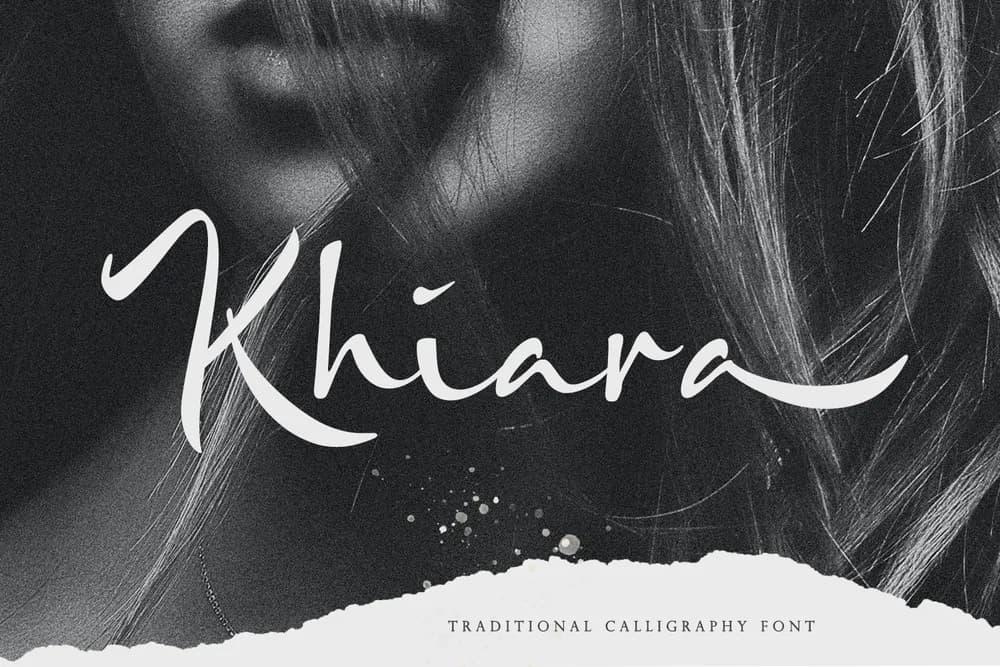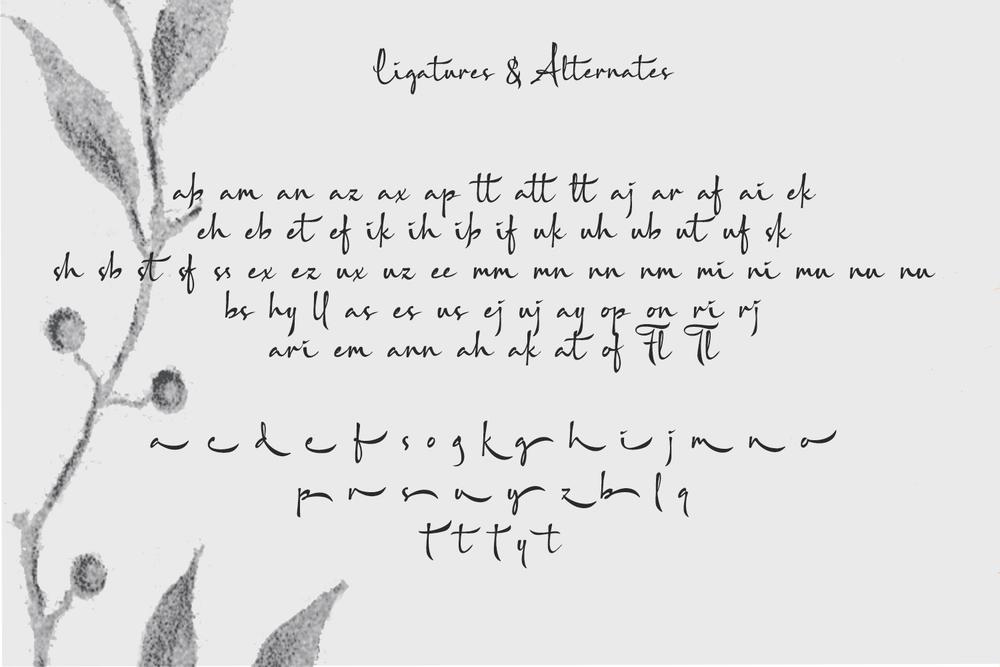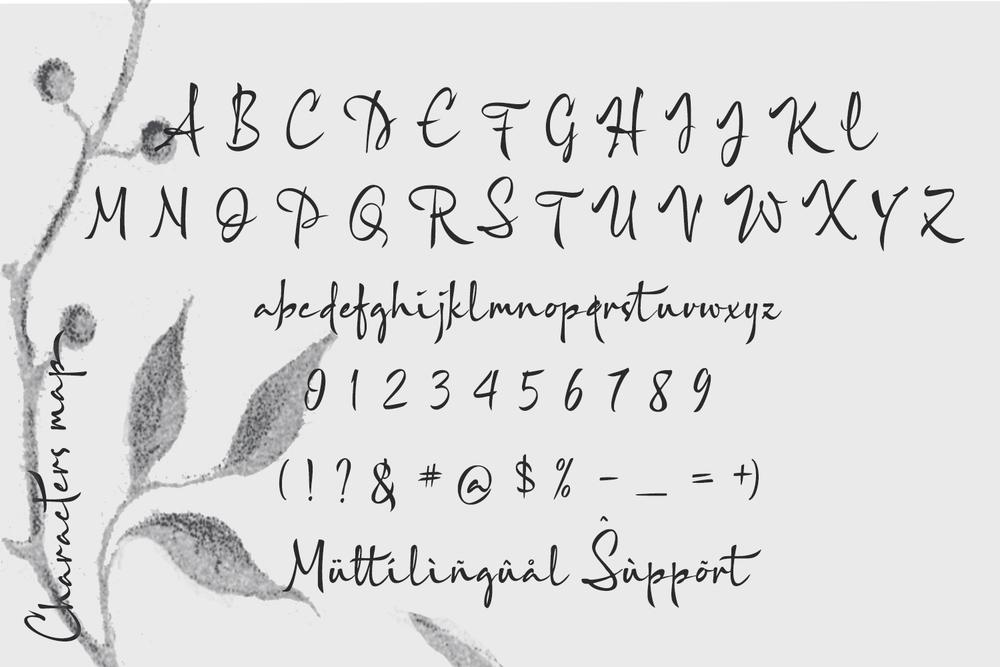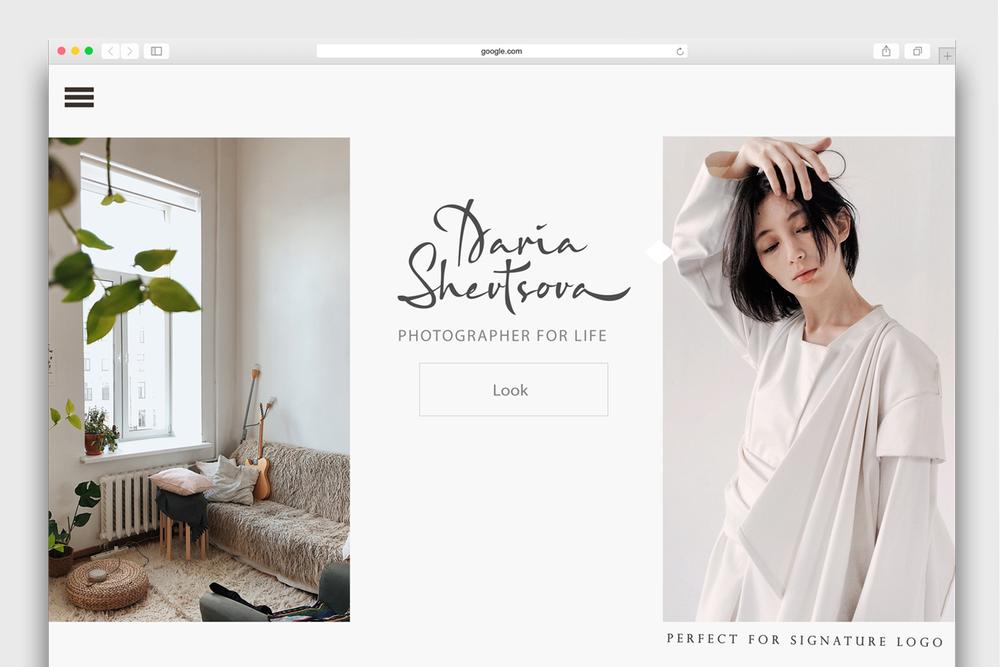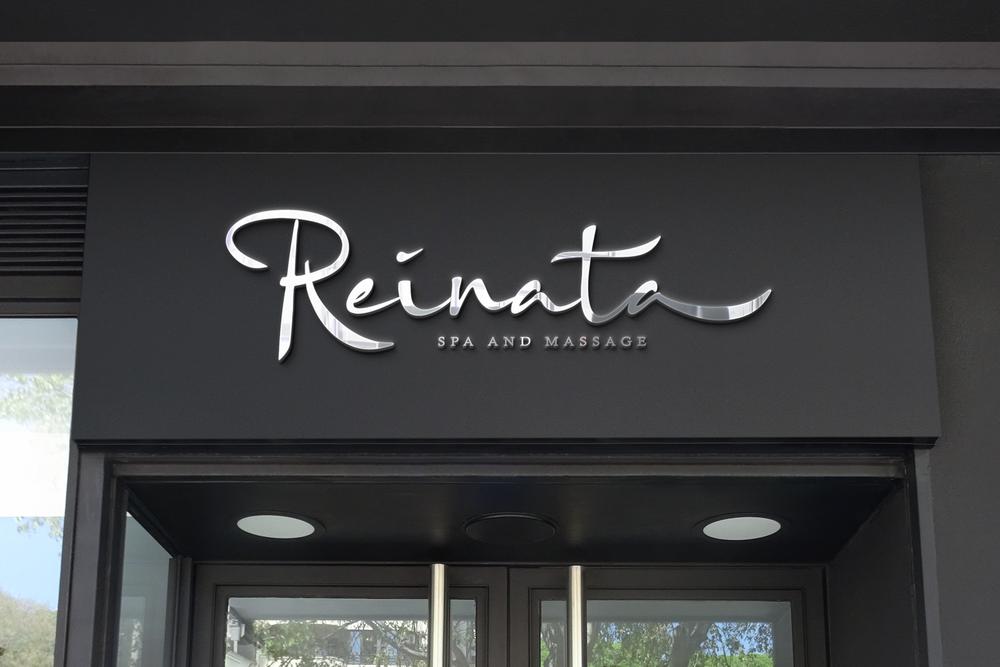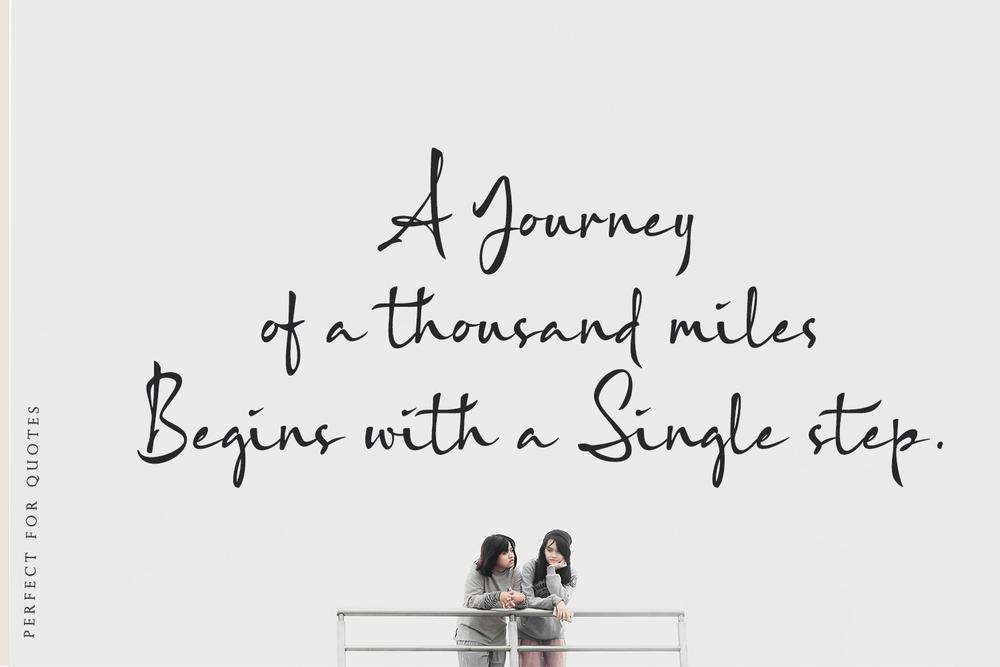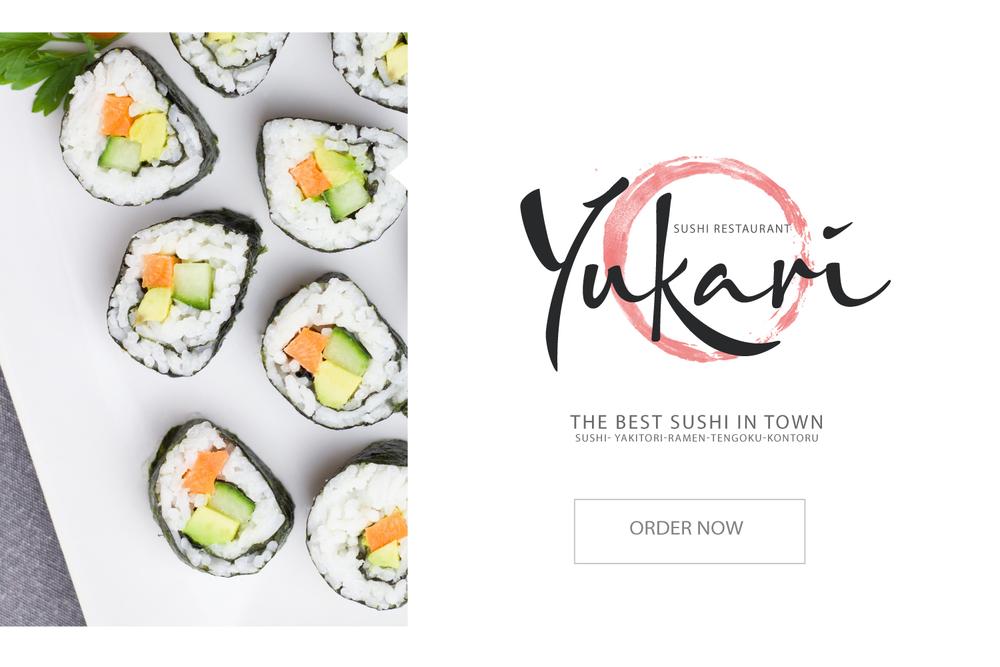
Khiara is a traditional and fashionable handwritten font. It’s the perfect choice for stylish branding logo projects, product packaging, handwritten quotes, editorial design invites, greetings and so much more! This font is PUA encoded which means you can access all of the glyphs and swashes with ease! FEATURES : Uppercase Lowercase Number Punctuation Multilingual PUA Encode Opentype FILES INCLUDED : Khiara OTF Khiara TTF Khiara WebFont